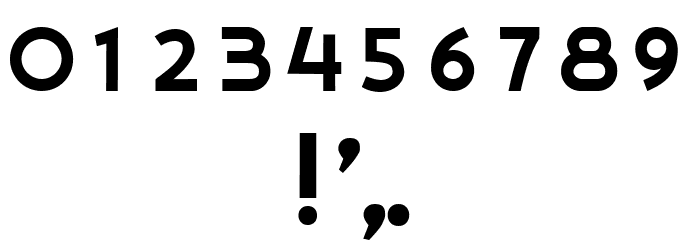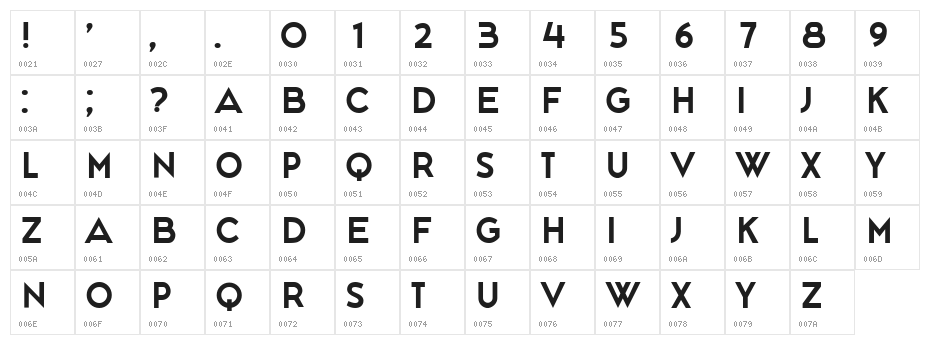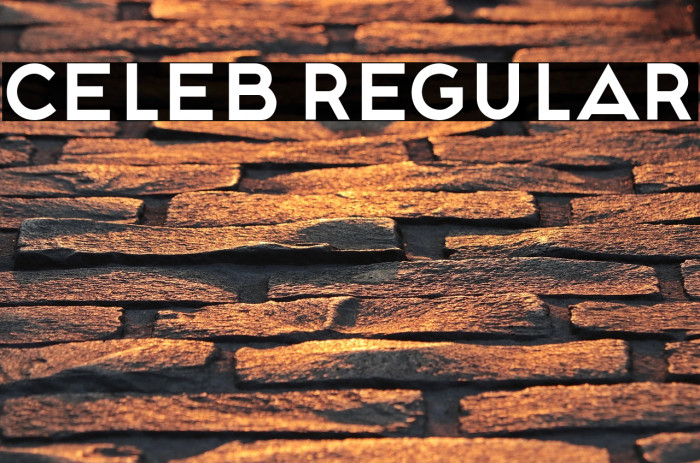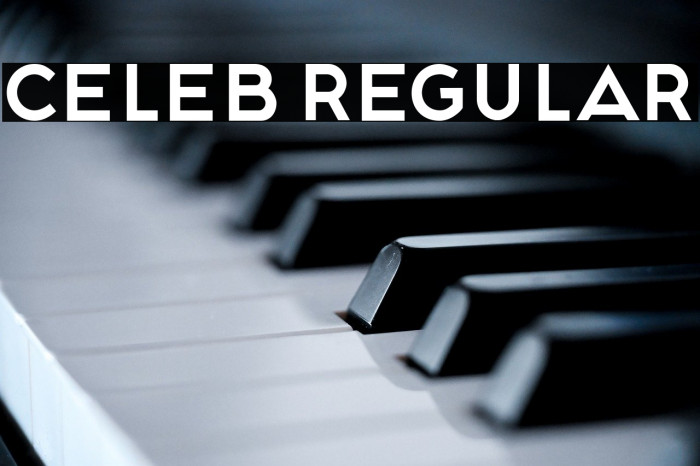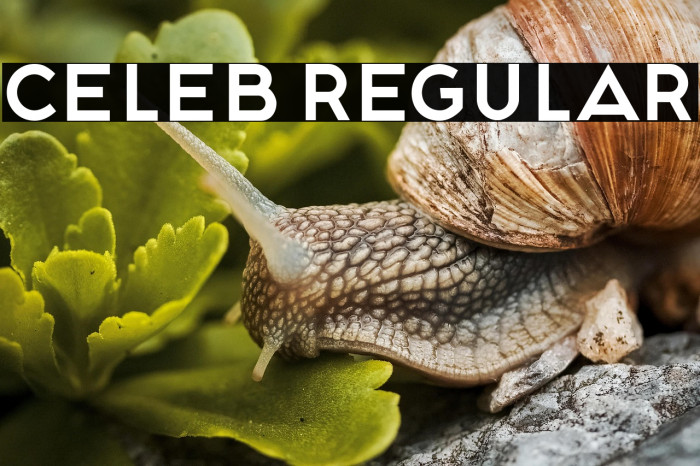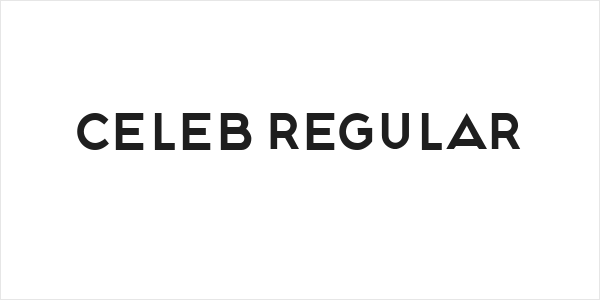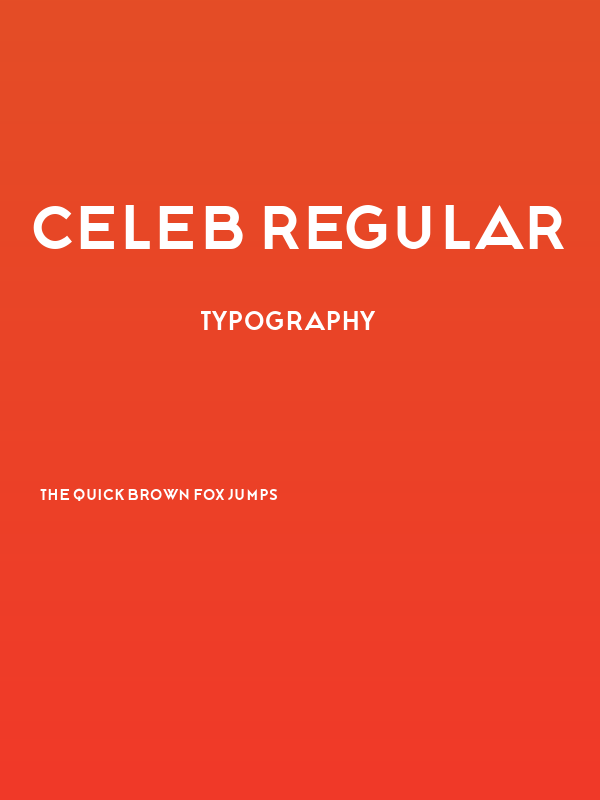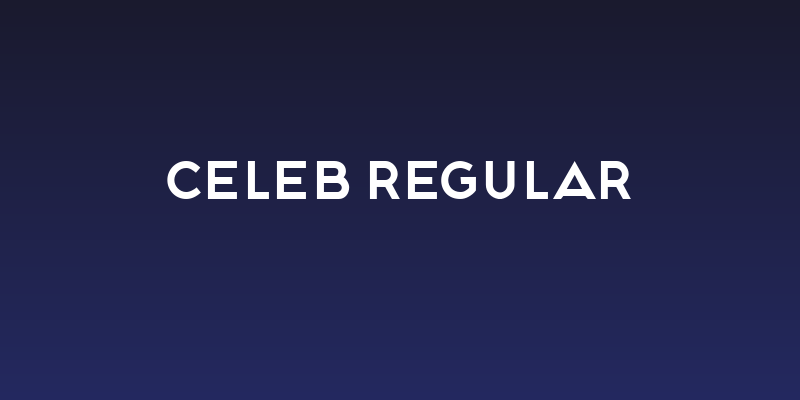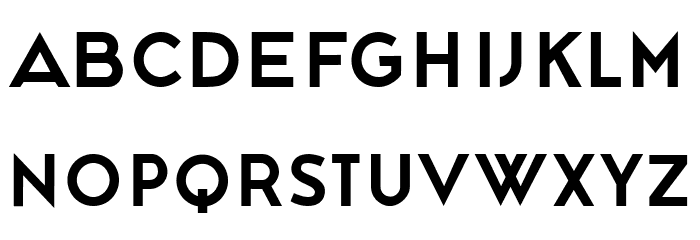
Celeb Regular Font
Celeb Regular Description
This font features a clean and modern sans-serif style with geometric influences. The characters are bold and uniform, offering a strong presence on the page. The uppercase and lowercase letters maintain a consistent height and width, contributing to a balanced and harmonious appearance. The numerals are clear and easily distinguishable, making them suitable for various applications. Special characters are designed with simplicity and clarity in mind, ensuring they complement the overall aesthetic. The font's design is versatile, making it suitable for both digital and print media.